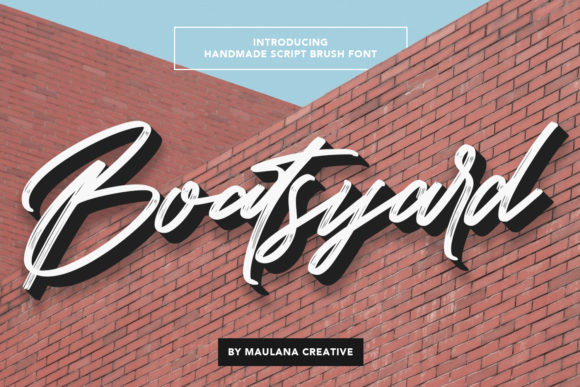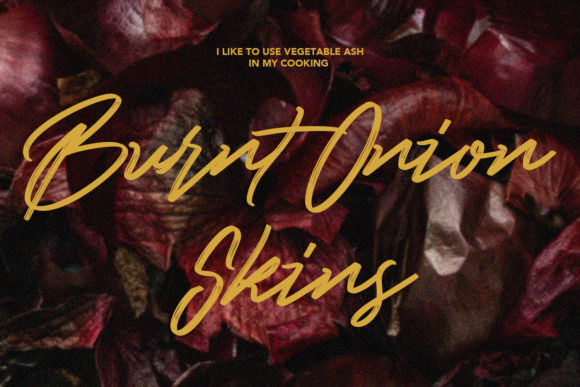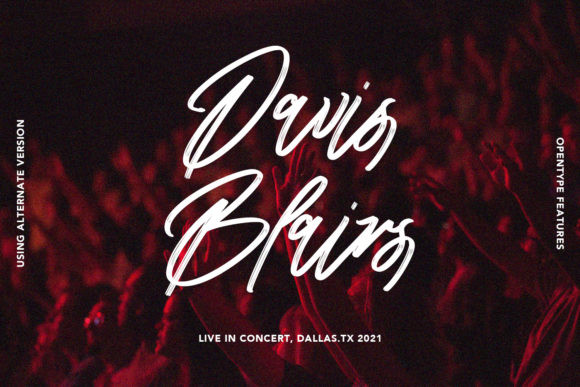
Boatsyard Font
Boatsyard is a lovely brushed handwritten font. It has a dazzling style and can be used for various purposes such as logos, wedding invitations, headings, t-shirts, letterhead, signage, labels, news, posters, badges and so much more.